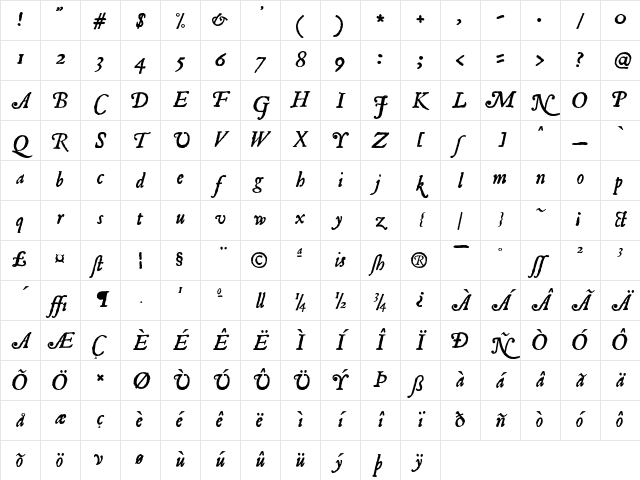
Roman Antique Italic Free Font
Roman Antique Italic
Roman Antique Family
Roman Antique Italic
Design Context for Roman Antique
Roman Antique wears its vintage influences proudly, with letterforms that recall mid-century signage, classic packaging, and nostalgia-driven design. The slanted form adds forward momentum and visual energy.
Font Pairing: Combine Roman Antique with a simple slab or neutral sans - period-accurate companions reinforce the vintage feel without competing for attention.
Pro Tip: Lean into Roman Antique's period character by pairing it with aged paper textures, muted colour palettes, and vintage illustration styles.